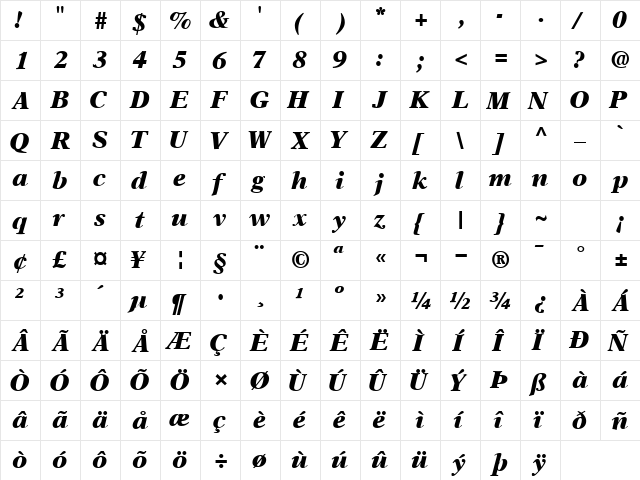
OrchidBlackSSK Bold Italic Font Preview
Design Context for OrchidBlackSSK Typeface
OrchidBlackSSK is a composed and adaptable typeface that performs quietly and consistently across a wide range of design contexts. Its italic angle brings a sense of urgency and motion to the letterforms. The heavy weight commands attention and anchors typographic hierarchies.